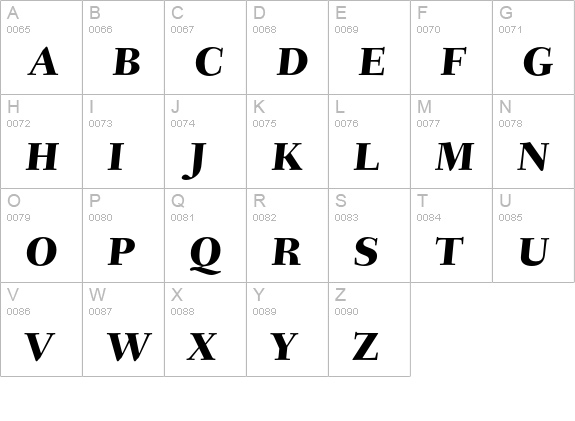
Fairfield LH 85 Caption Heavy is a heavy, high-impact variant in the Fairfield typeface family \xE2\x80\x94 well suited to high-impact headlines, posters, and display advertising.
Fairfield LH 85 Caption Heavy font is a bold and striking typeface designed to make a statement. With its strong and commanding presence, this font is perfect for headlines, titles, and any design that requires a touch of bold elegance. The tall x-height and thick strokes give it a modern and confident look, making it ideal for branding, packaging, and editorial projects. What makes Fairfield LH 85 Caption Heavy font even more appealing is that it is available for free download at FontsMarket.com. This means you can easily access this premium font without having to spend a single penny. Don't miss out on the opportunity to enhance your designs with this stylish and versatile typeface that will surely leave a lasting impression.